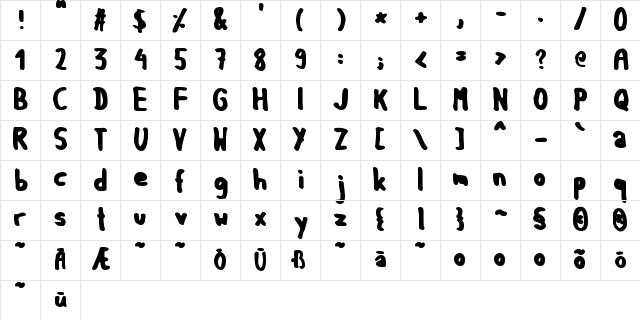
GF Matilda bold Normal
Design Context for GF Matilda bold
GF Matilda bold is a composed and adaptable typeface that performs quietly and consistently across a wide range of design contexts. Its bold stroke weight gives it real presence on the page.